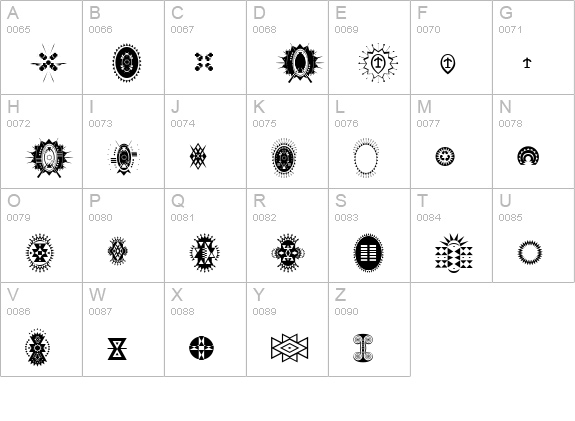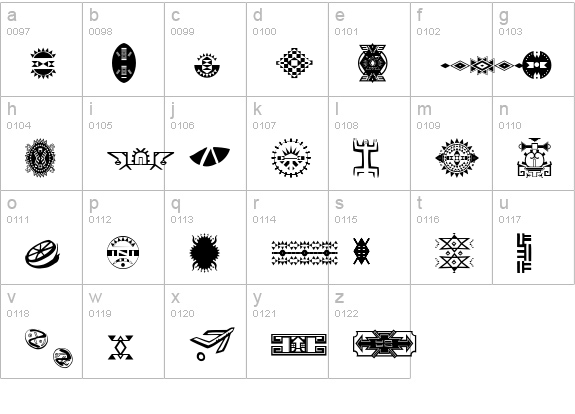
AfroDisiac Font Details
Introducing AfroDisiac font, a captivating and vibrant typeface inspired by the rich cultural heritage of Africa. With its bold and stylish design, AfroDisiac exudes a sense of energy and creativity that will make your text stand out. The unique characters and intricate details of this font make it perfect for a wide range of design projects, from branding to posters to social media graphics. What's even better is that AfroDisiac font is available for free download at FontsMarket.com. Now you can easily add a touch of African flair to your designs without breaking the bank. Don't miss out on this opportunity to enhance your creative projects with the striking beauty of AfroDisiac font. Download it today and let your creativity soar!